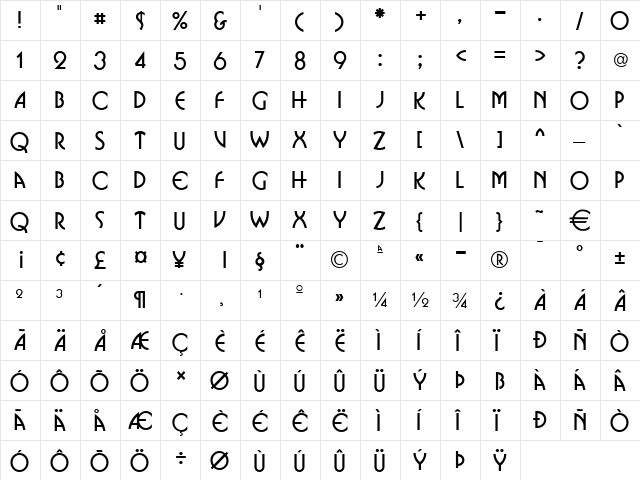
Busso Normal
Design Context for Busso Typeface
Busso offers clean, dependable letterforms without strong stylistic allegiance, making it a practical choice for designers who need flexibility.